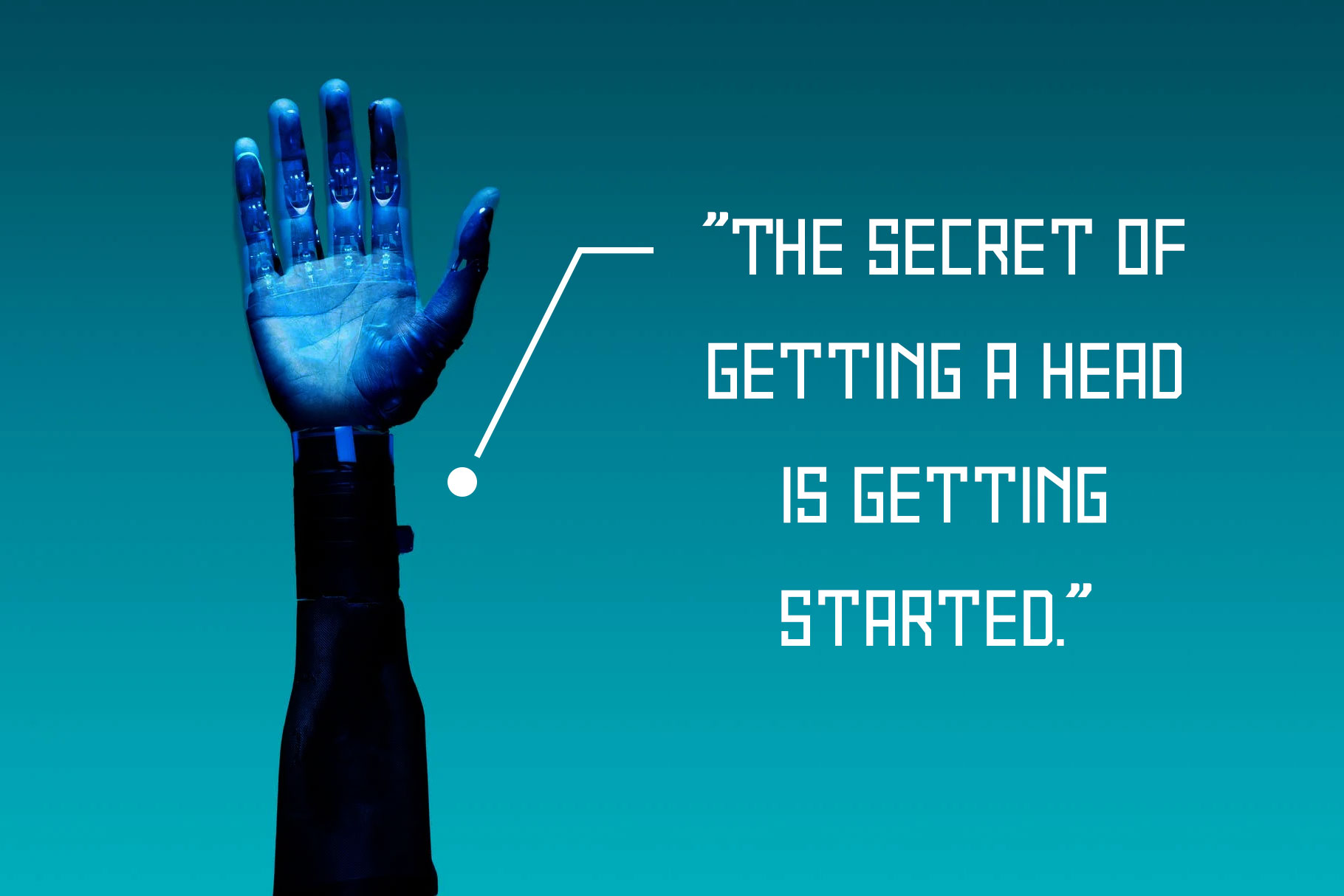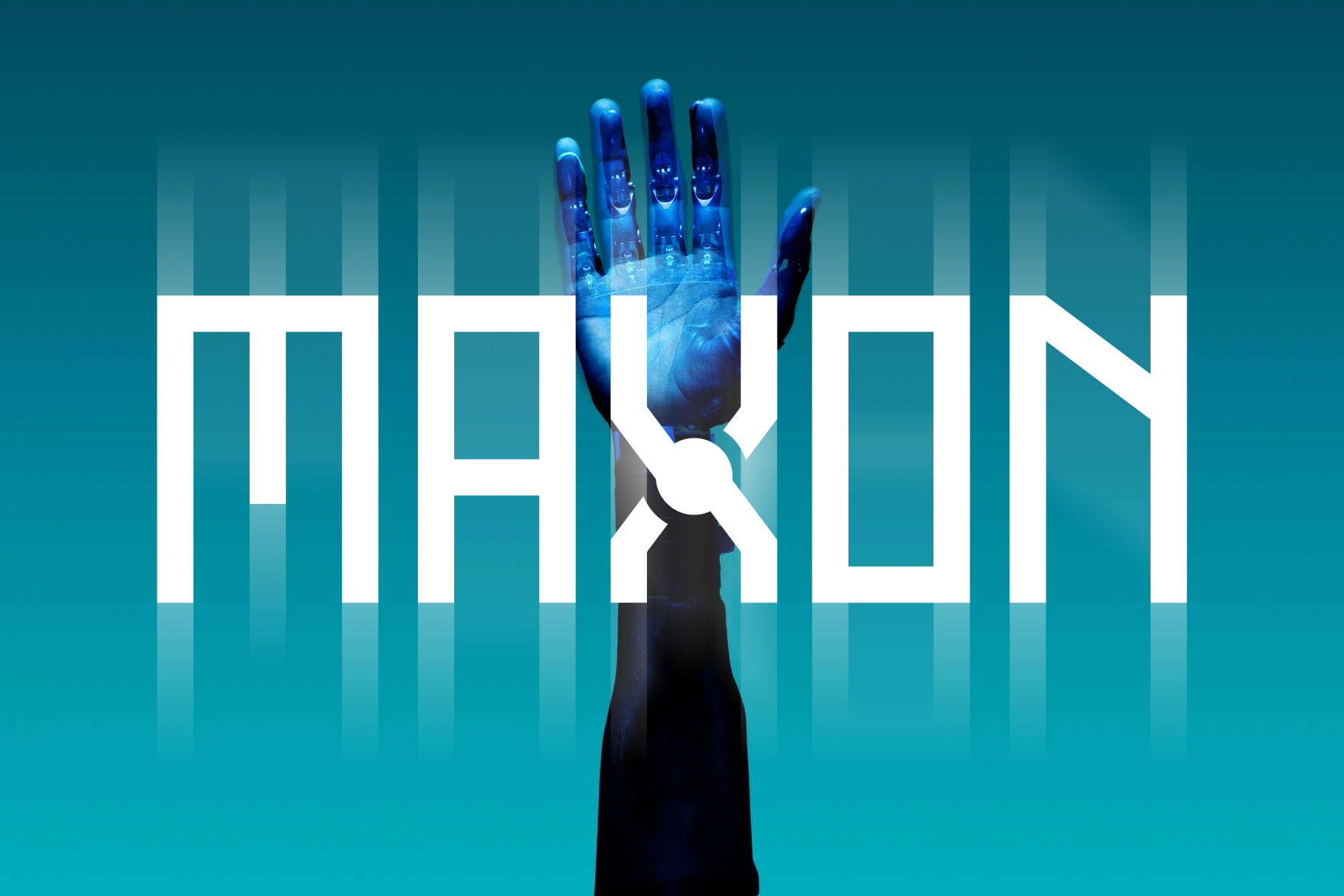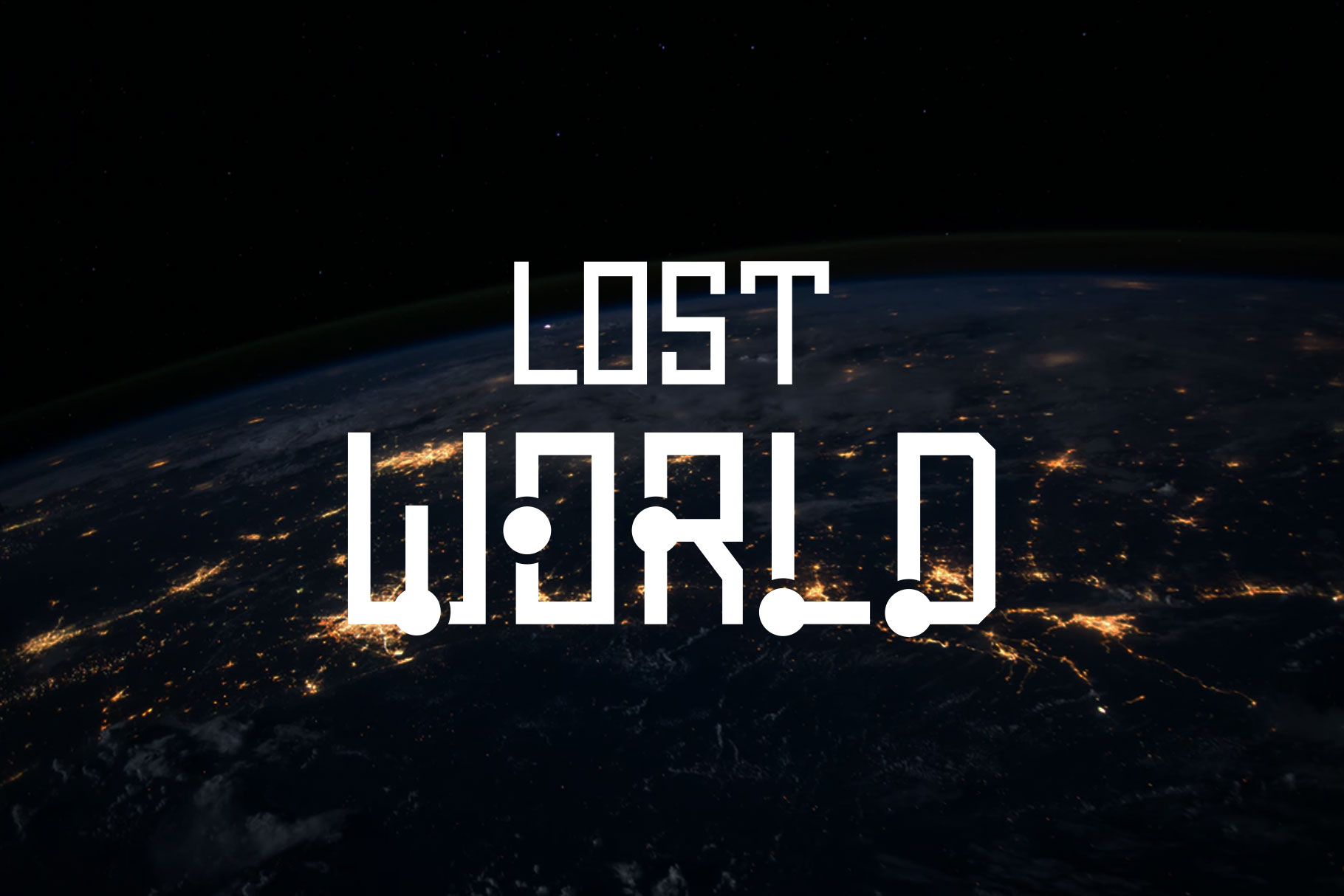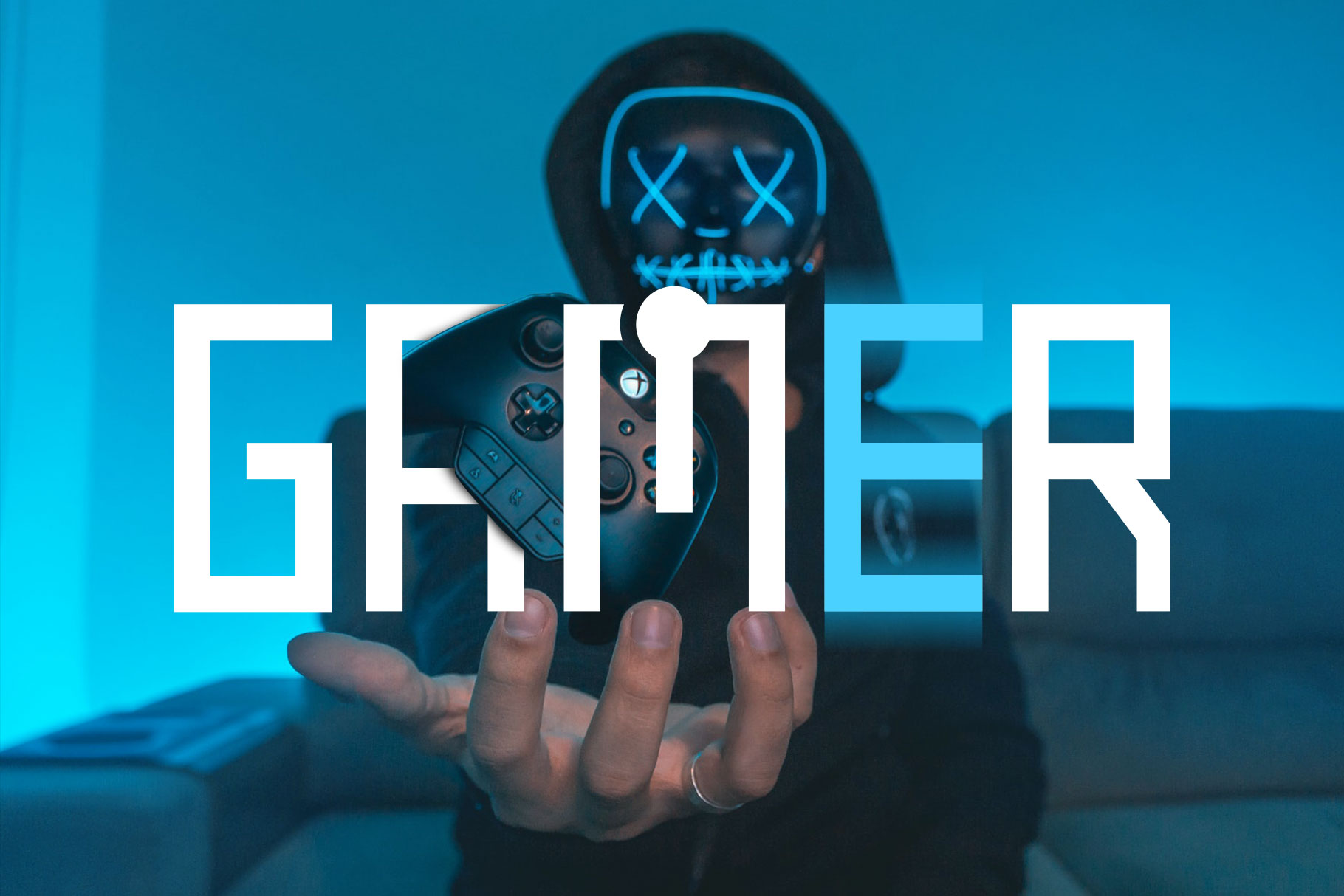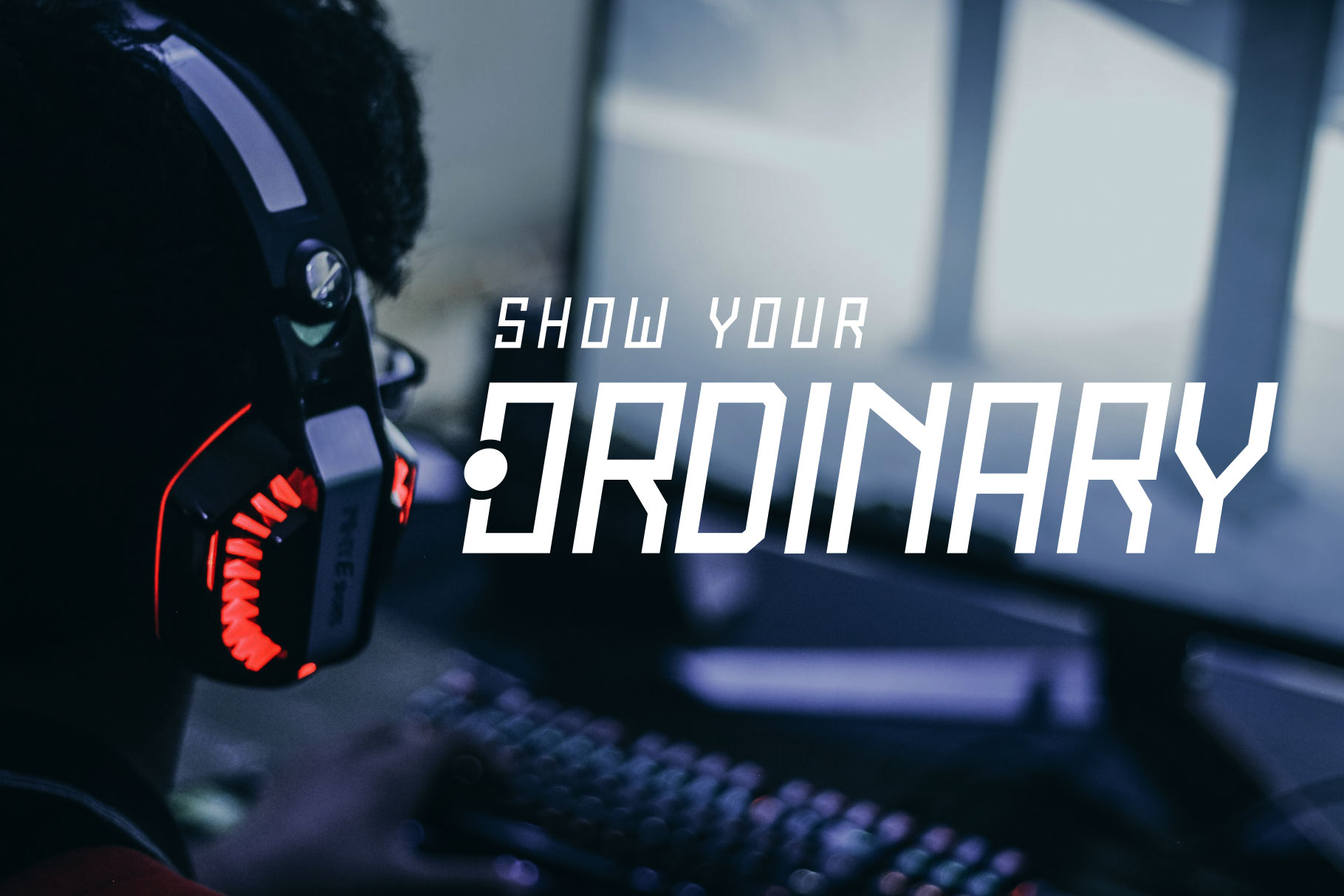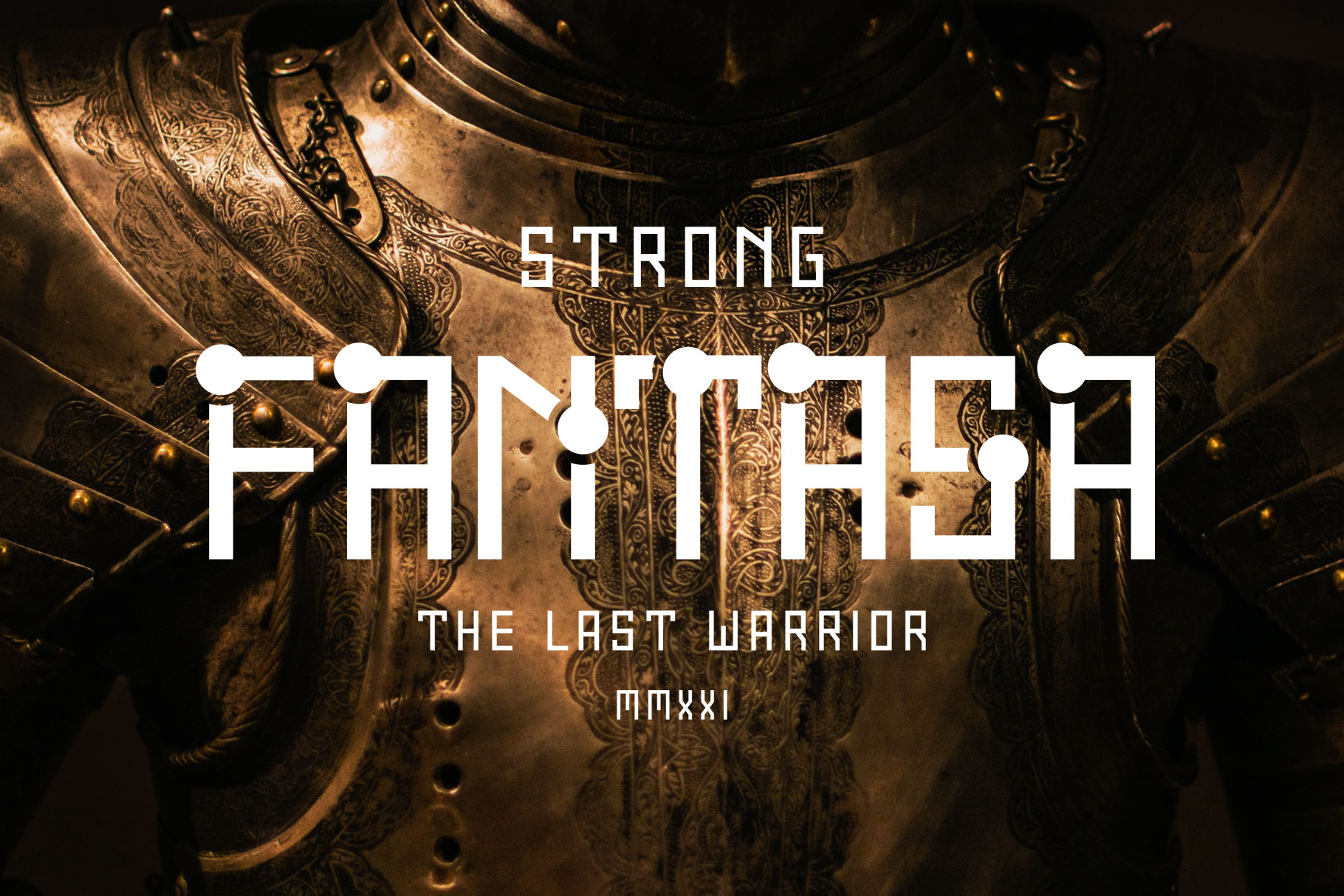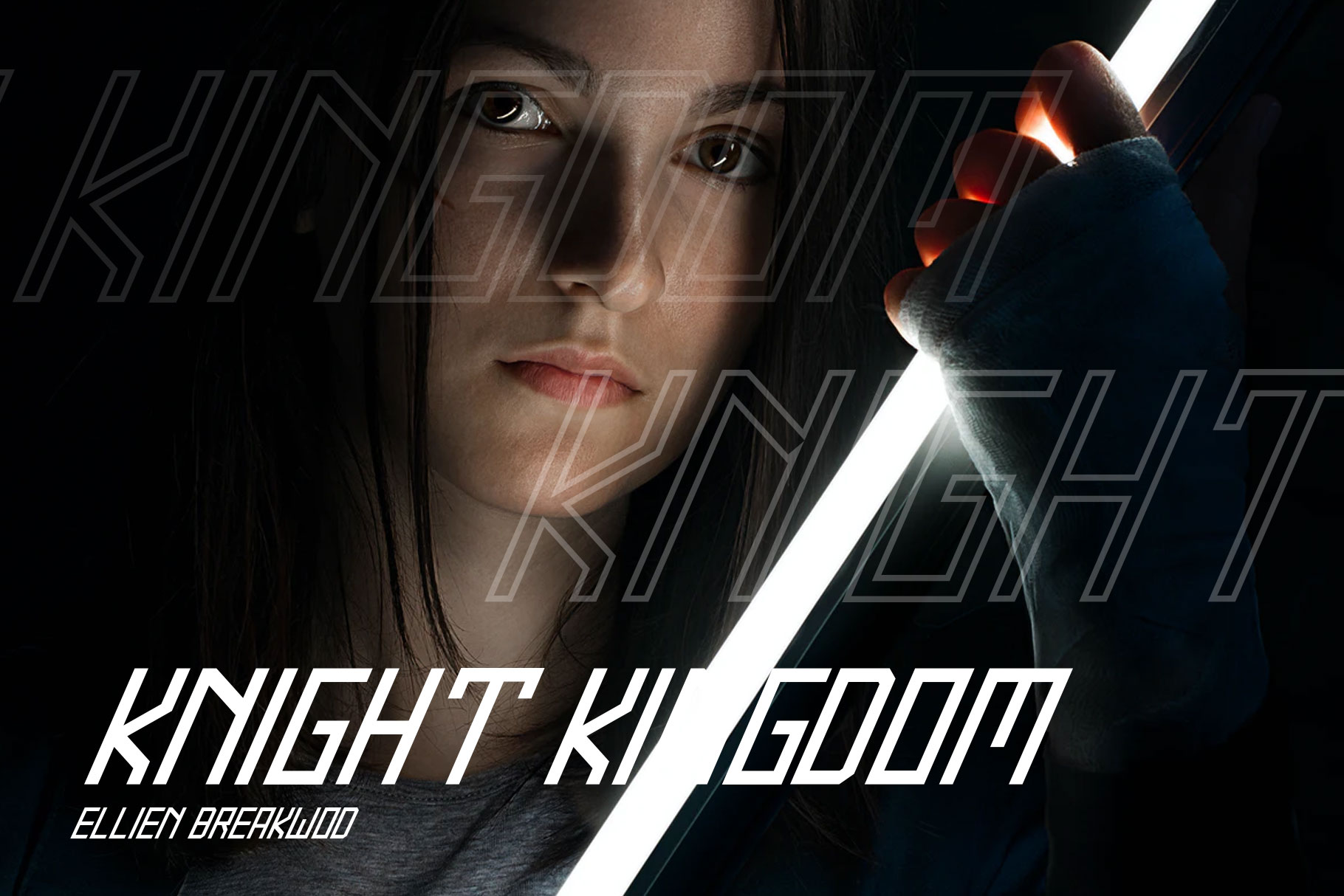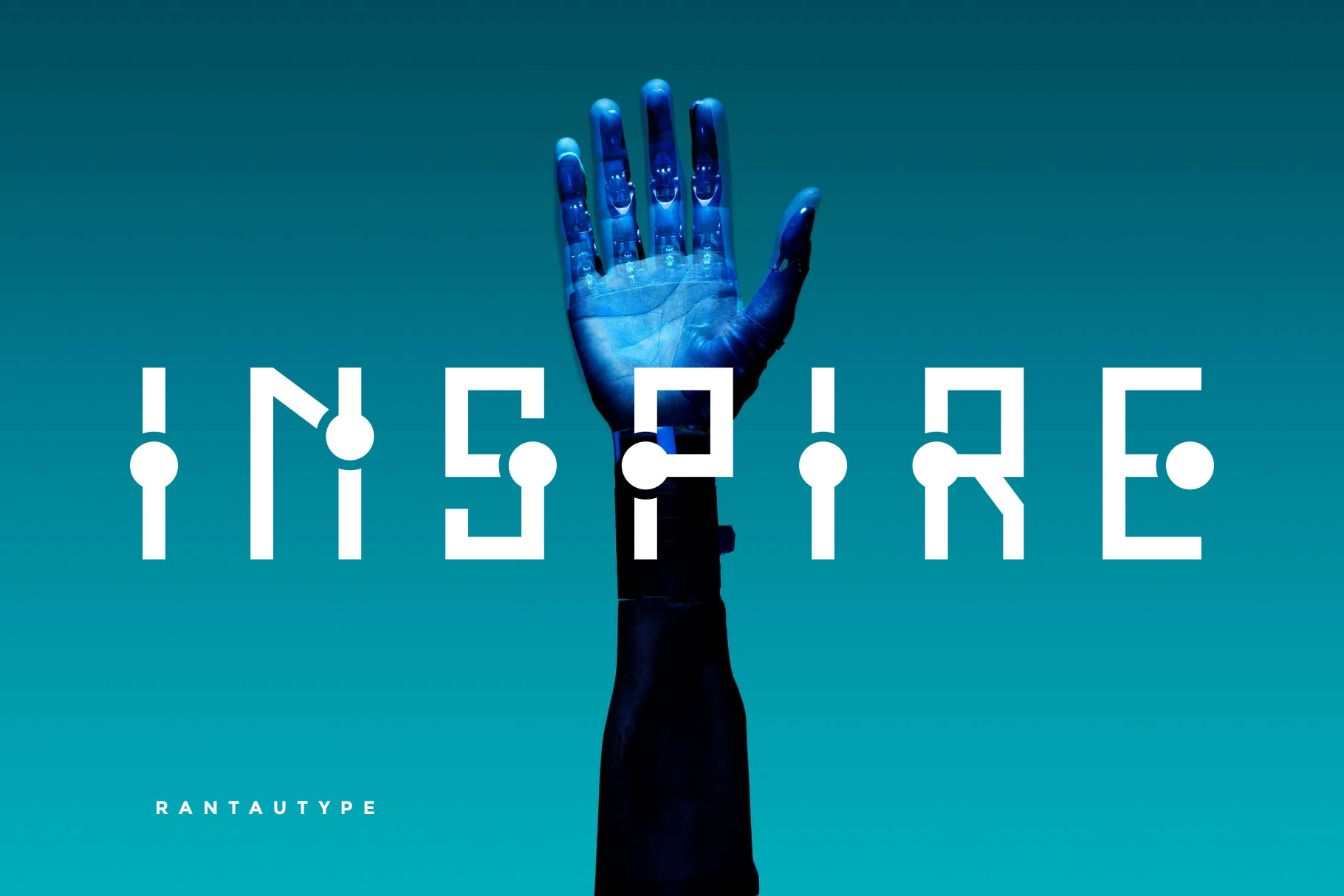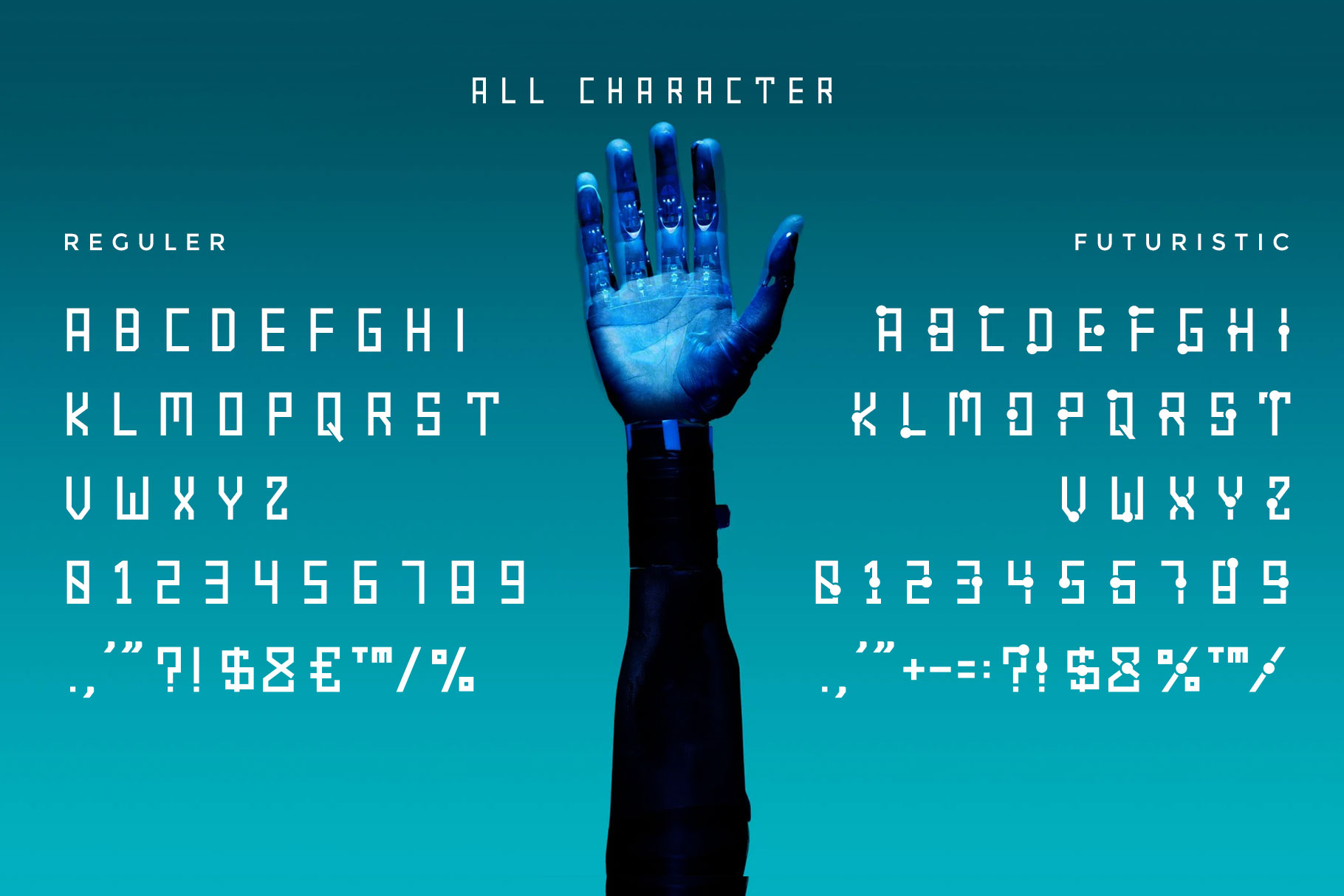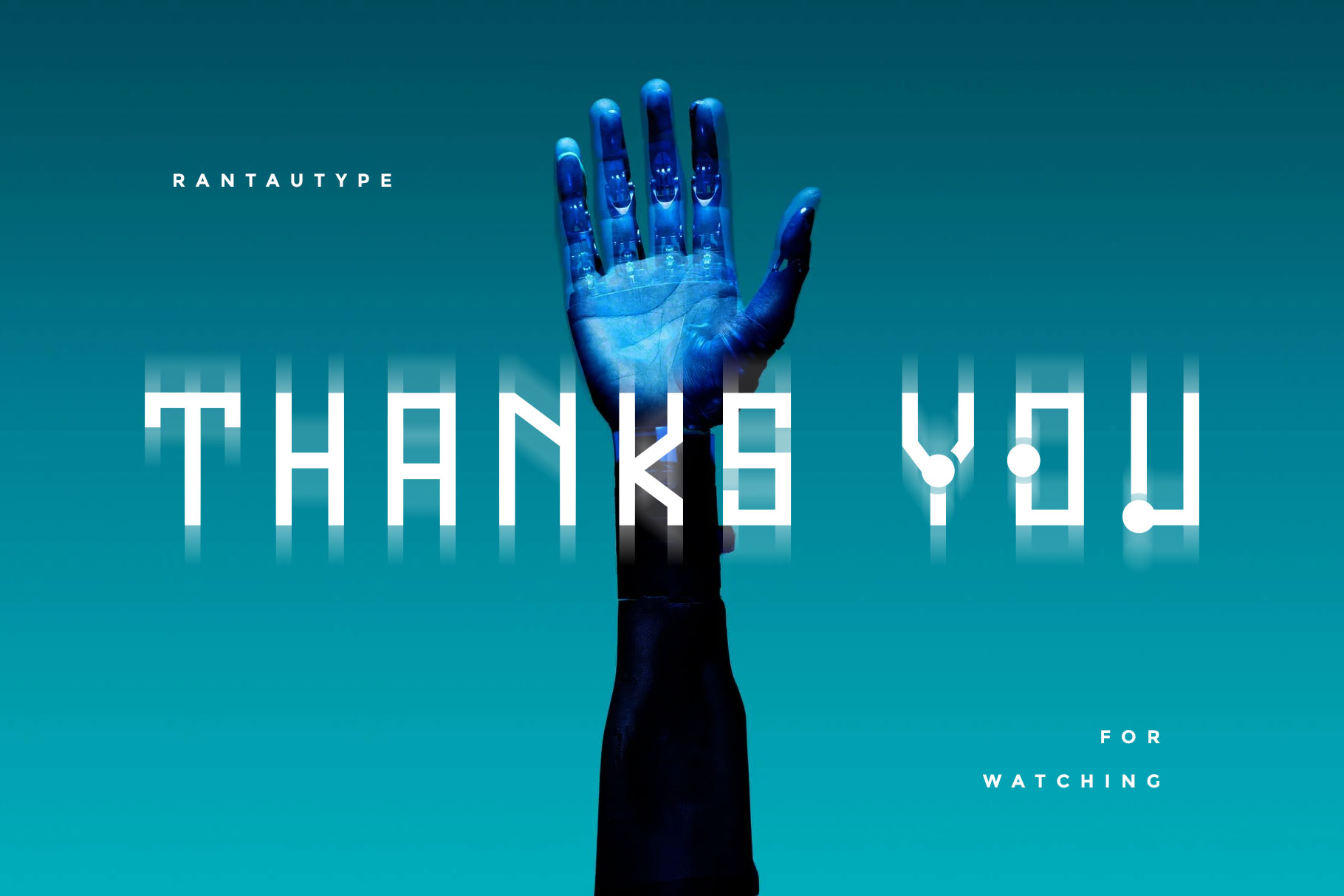
Kuvas Futuristic Font
Kuvas is great for making logotype, branding, promotional ads, quotes design, packaging, t-shirt design. merchandise, poster, merchandise, social media and much more.  Coming up with two font in regular and futuristic, you can choices based in your creativity.  Kuvas is here to make your work or your business to high level!!!